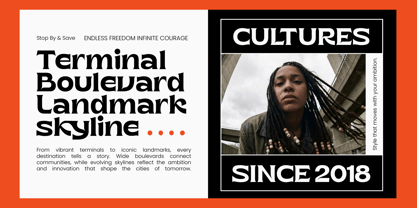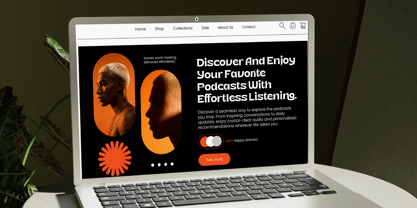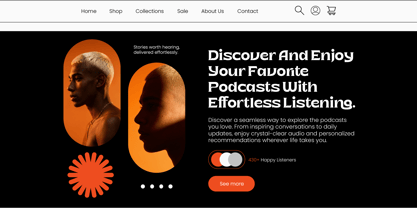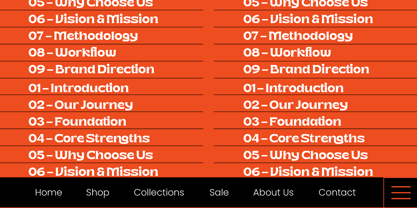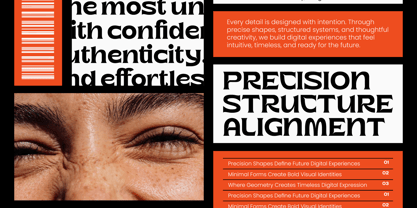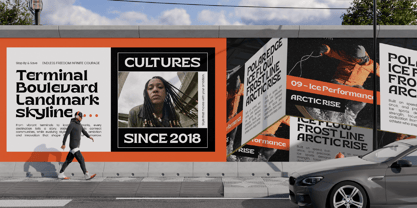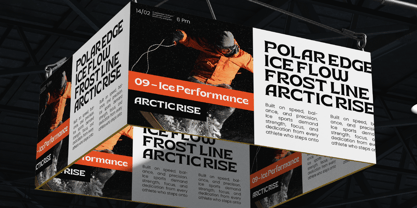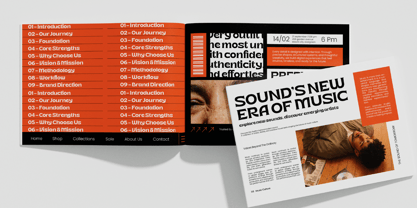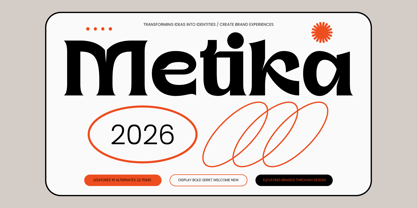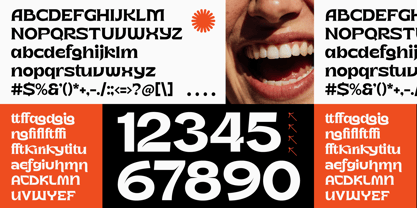
The Metika Font Family was designed by Heru Utama Putra and published by Timelesstype Studio. Metika contains 2 styles and family package options. More about this family
Experience the perfect harmony of strength and elegance with Metika, a typeface designed to command attention and transform your creative vision into a tangible identity. This display bold serif is more than just a font; it is a statement of sophisticated design and bold character.
Drawing inspiration from the intersection of classic European typography and the vibrant energy of emerging aesthetics, the font captures a timeless spirit with a futuristic edge. It reflects a world where traditional craftsmanship meets digital-first brand experiences, resulting in letters that feel both established and revolutionary.